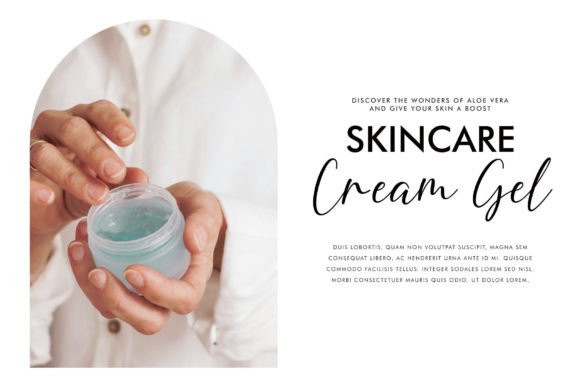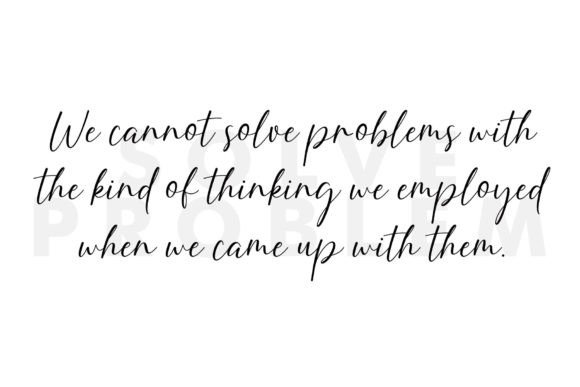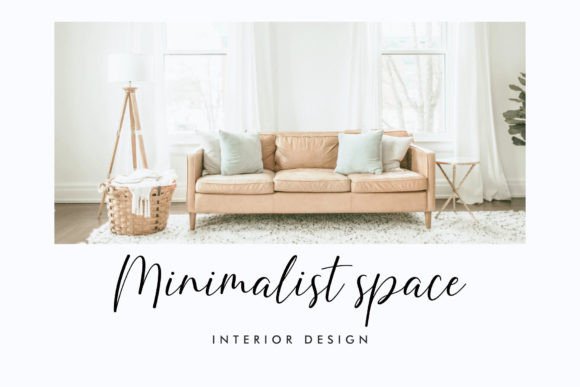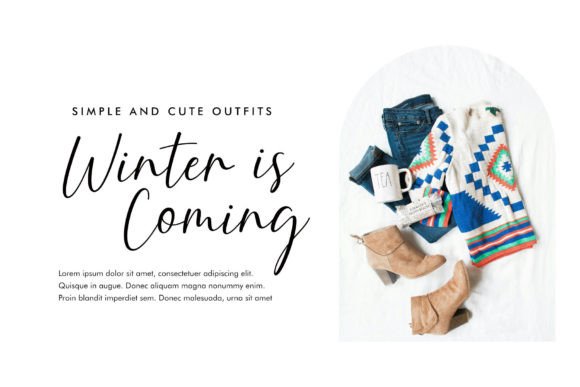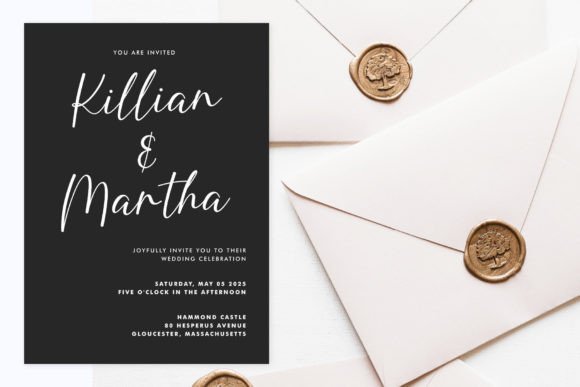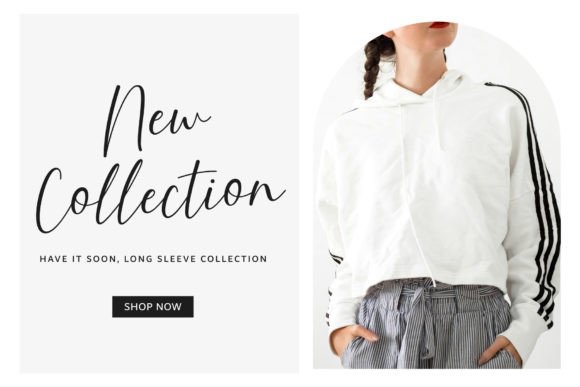
Introducing Ainsley: The Timeless Modern Script Font for Elegant Designs
In the world of typography, a font can make or break a design. For those seeking a touch of elegance and sophistication, Ainsley is the perfect choice. This modern script font is designed to elevate any project, from branding and invitations to watermarks and photography. With its versatile and stylish appeal, Ainsley is ideal for designers and crafters who want to add a level of refinement to their work.
The Story Behind Ainsley
Ainsley is more than just a font – it’s a statement piece. Crafted with precision and attention to detail, this modern script font exudes a sense of luxury and poise. Its timeless design ensures that it will remain relevant for years to come, making it a valuable addition to any designer’s toolkit. Whether you’re working on a high-end branding project or a beautiful wedding invitation, Ainsley is the perfect choice.
Key Features of Ainsley
So, what sets Ainsley apart from other script fonts? Here are just a few of its key features:
- Elegant and Sophisticated: Ainsley’s modern script design is perfect for projects that require a touch of elegance and refinement.
- Versatile: This font is suitable for a wide range of applications, from branding and advertising to invitations and photography.
- Timeless: Ainsley’s classic design ensures that it will remain relevant for years to come, making it a valuable investment for designers.
- Easy to Read: Despite its elegant design, Ainsley is easy to read, making it perfect for body text and headlines.
Using Ainsley in Your Designs
So, how can you use Ainsley in your designs? Here are just a few ideas to get you started:
- Elegant Branding: Use Ainsley to create sophisticated brand identities that exude luxury and refinement.
- Wedding Invitations: Add a touch of elegance to your wedding invitations and stationery with Ainsley’s beautiful script design.
- Watermarks: Use Ainsley to create stylish watermarks that add a level of sophistication to your photography and artwork.
- Advertising: Ainsley is perfect for advertising and marketing materials, such as brochures, flyers, and posters.
Tips for Pairing Ainsley with Other Fonts
When pairing Ainsley with other fonts, it’s essential to choose fonts that complement its elegant design. Here are a few tips to keep in mind:
- Pair with Sans Serifs: Pair Ainsley with sans serif fonts, such as Arial or Helvetica, for a clean and modern look.
- Combine with Script Fonts: Combine Ainsley with other script fonts for a elegant and sophisticated look.
- Use with Serif Fonts: Pair Ainsley with serif fonts, such as Times New Roman or Georgia, for a classic and refined look.
In conclusion, Ainsley is a timeless modern script font that is perfect for designers and crafters seeking to add a touch of elegance to their work. With its versatile and stylish appeal, Ainsley is ideal for a wide range of applications, from branding and advertising to invitations and photography. Whether you’re working on a high-end branding project or a beautiful wedding invitation, Ainsley is the perfect choice.